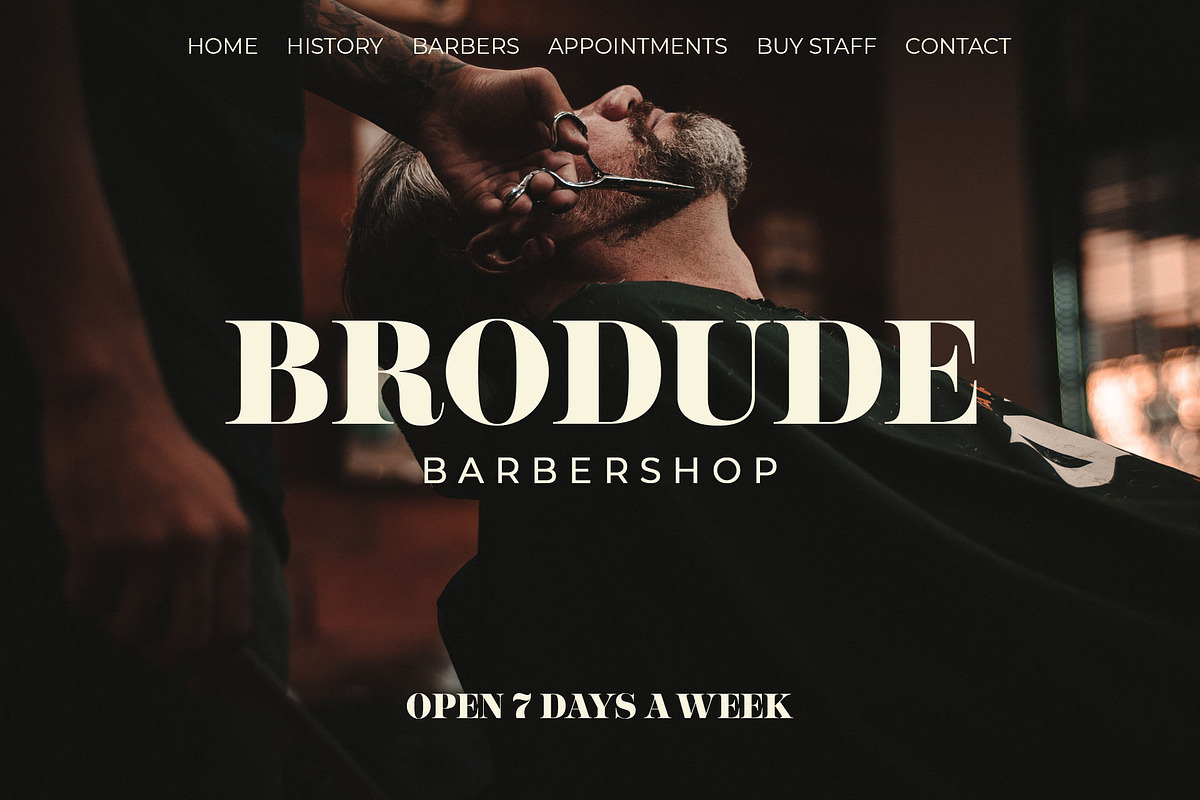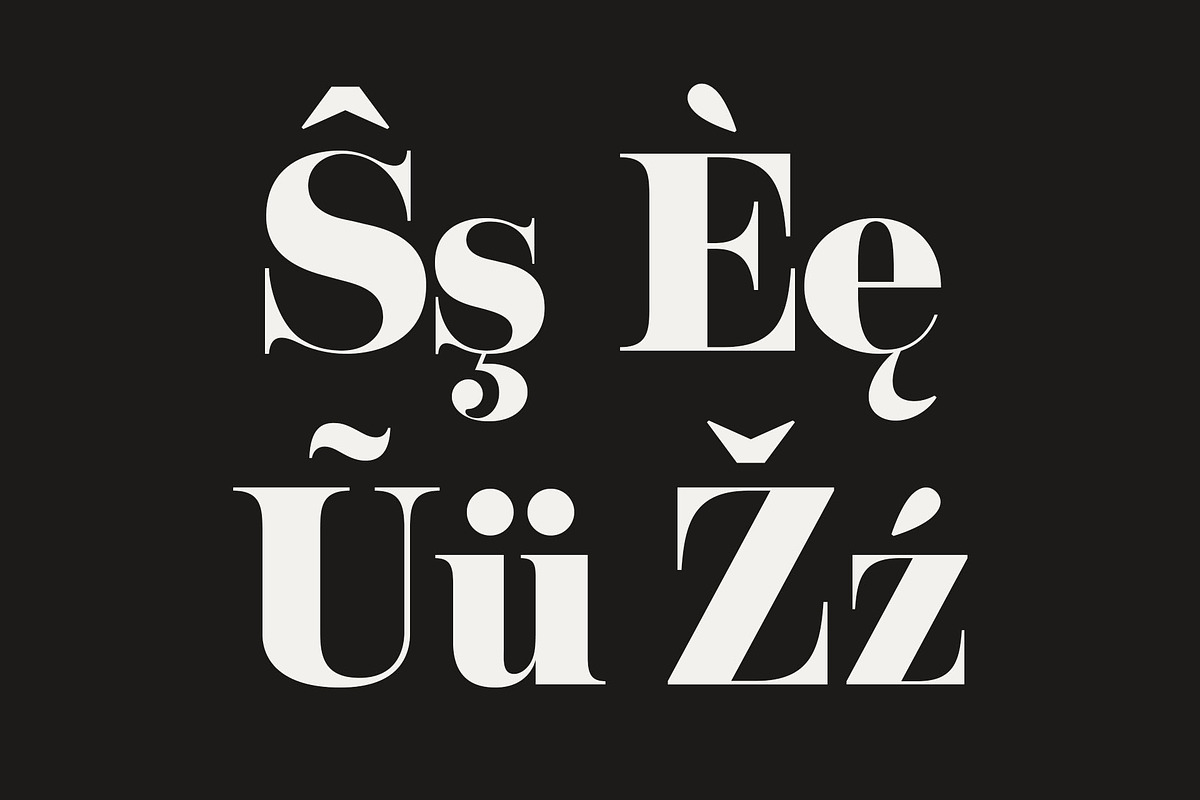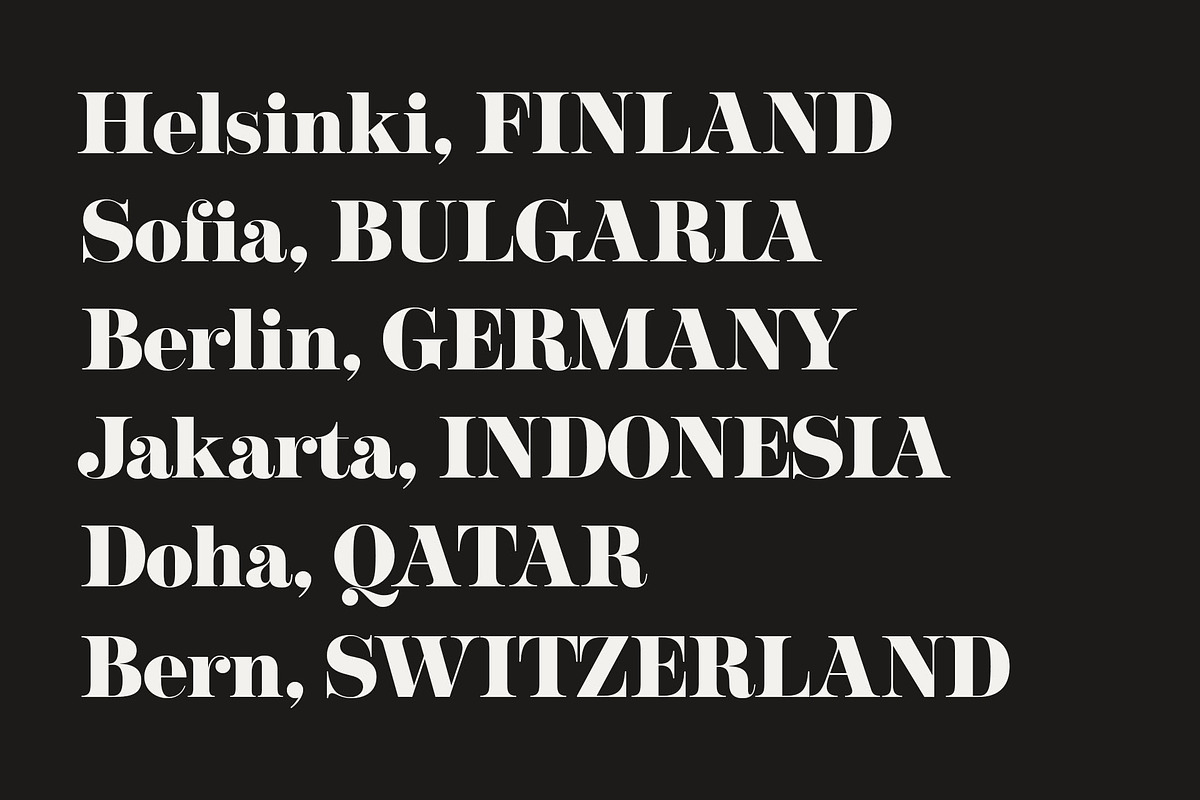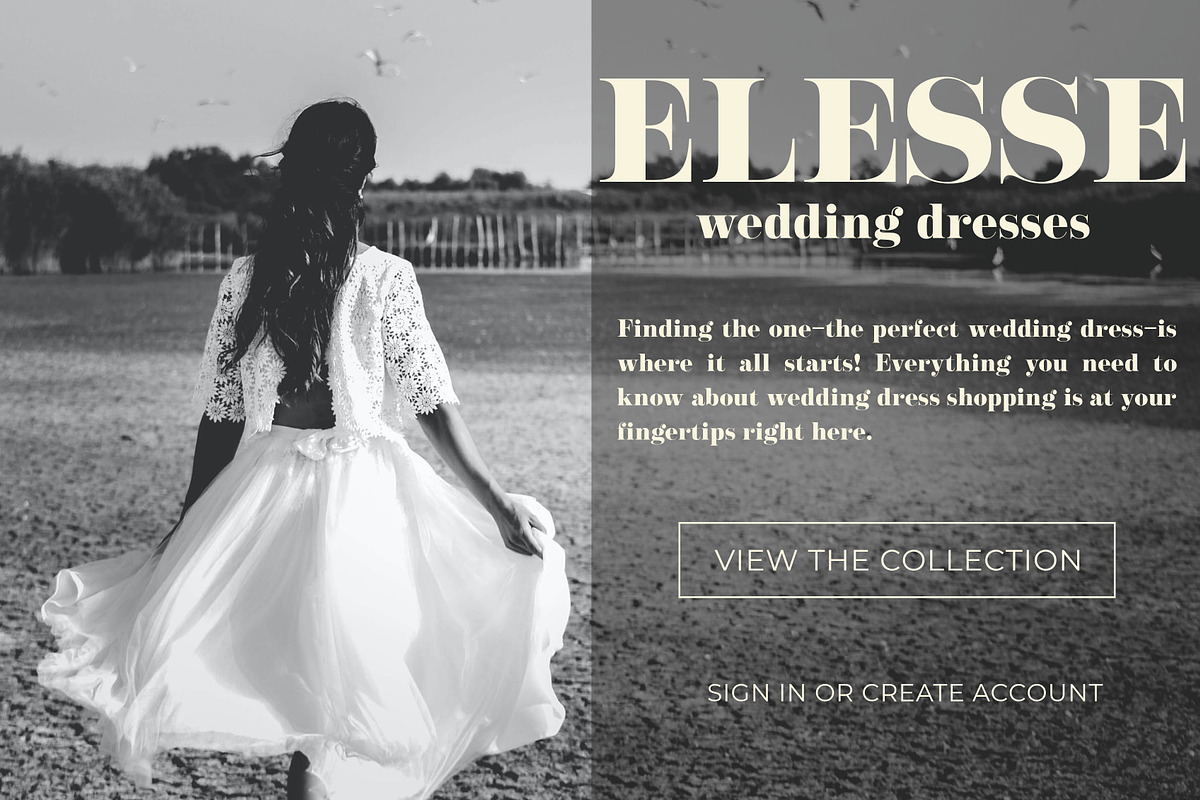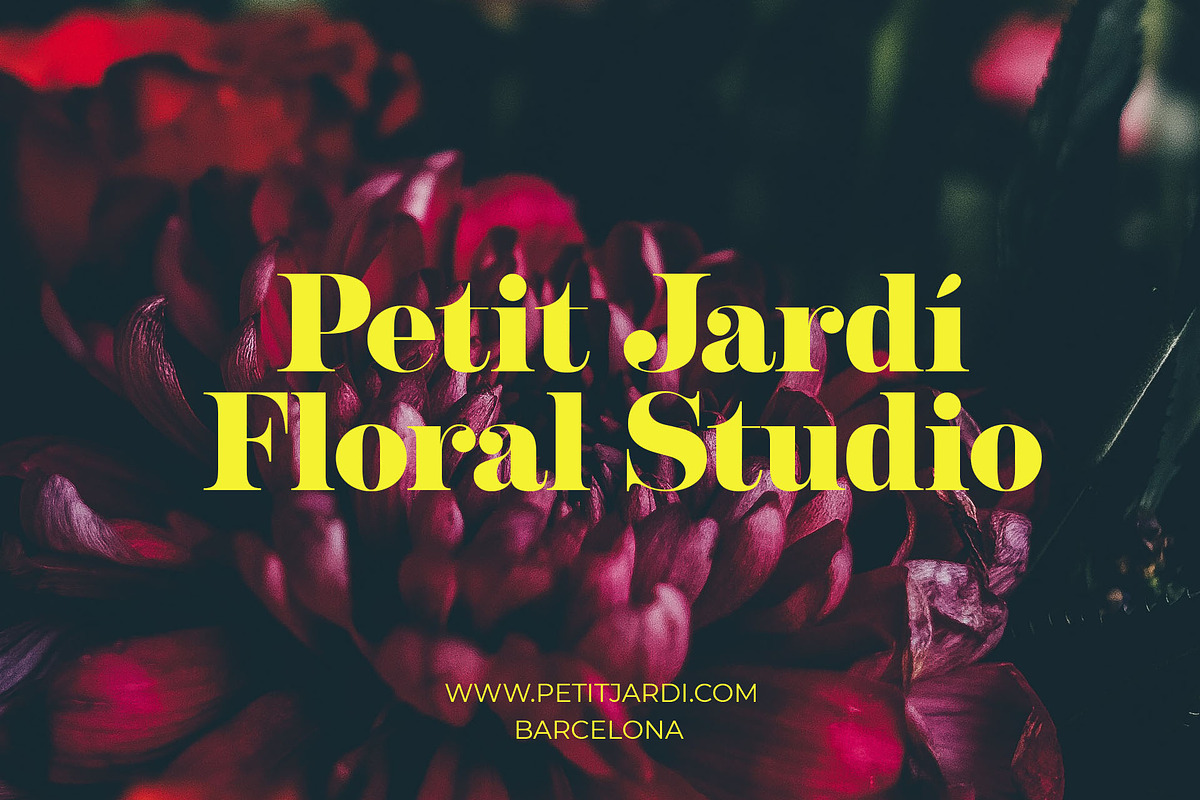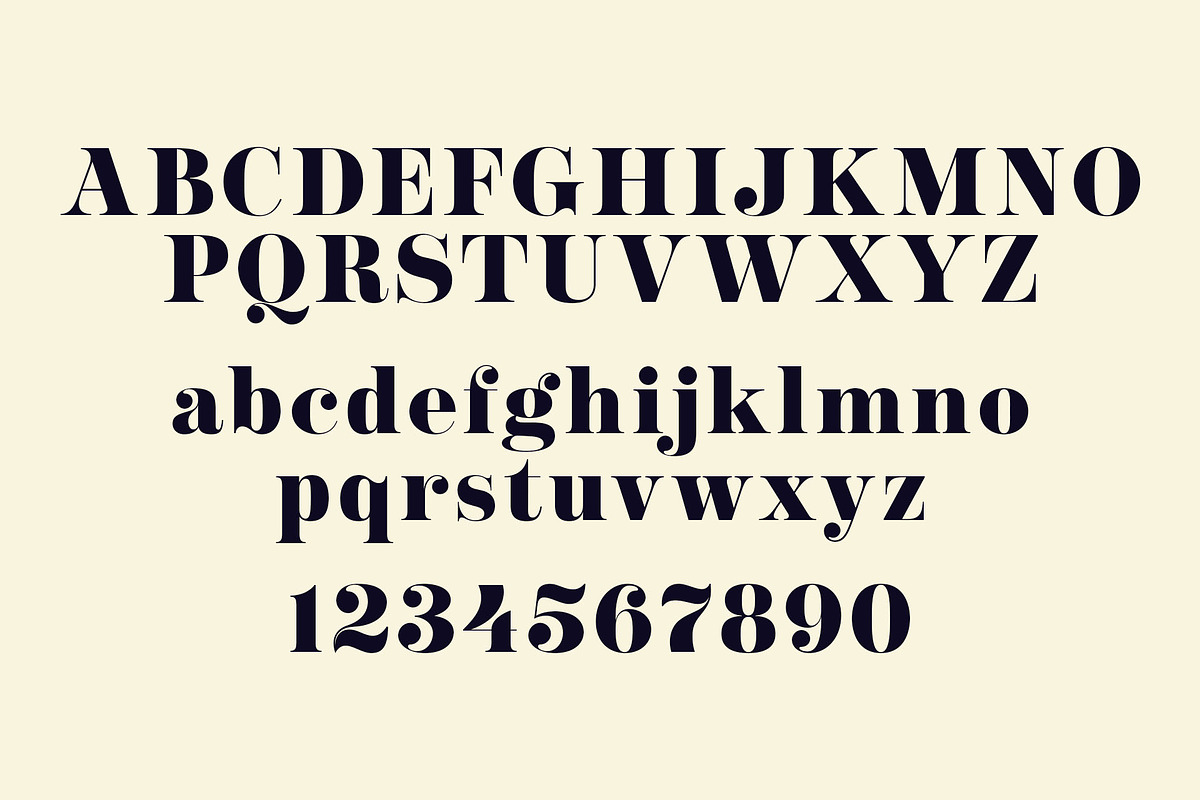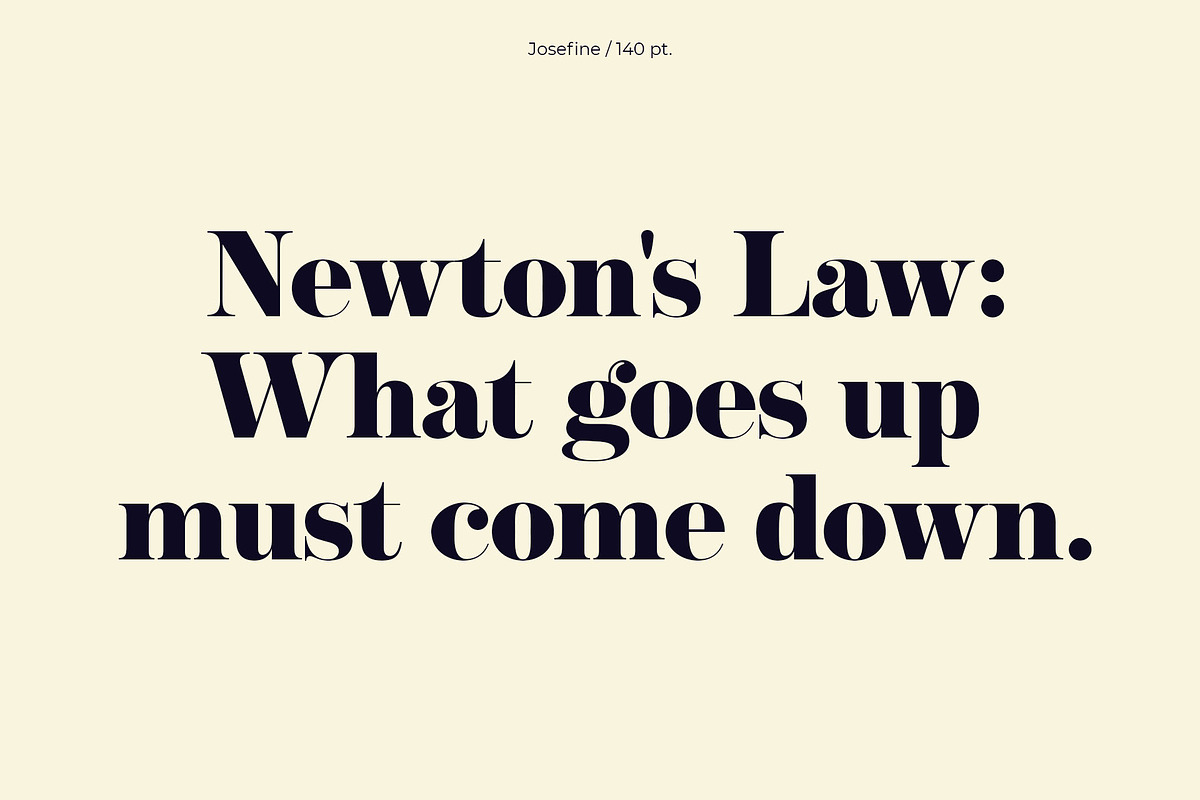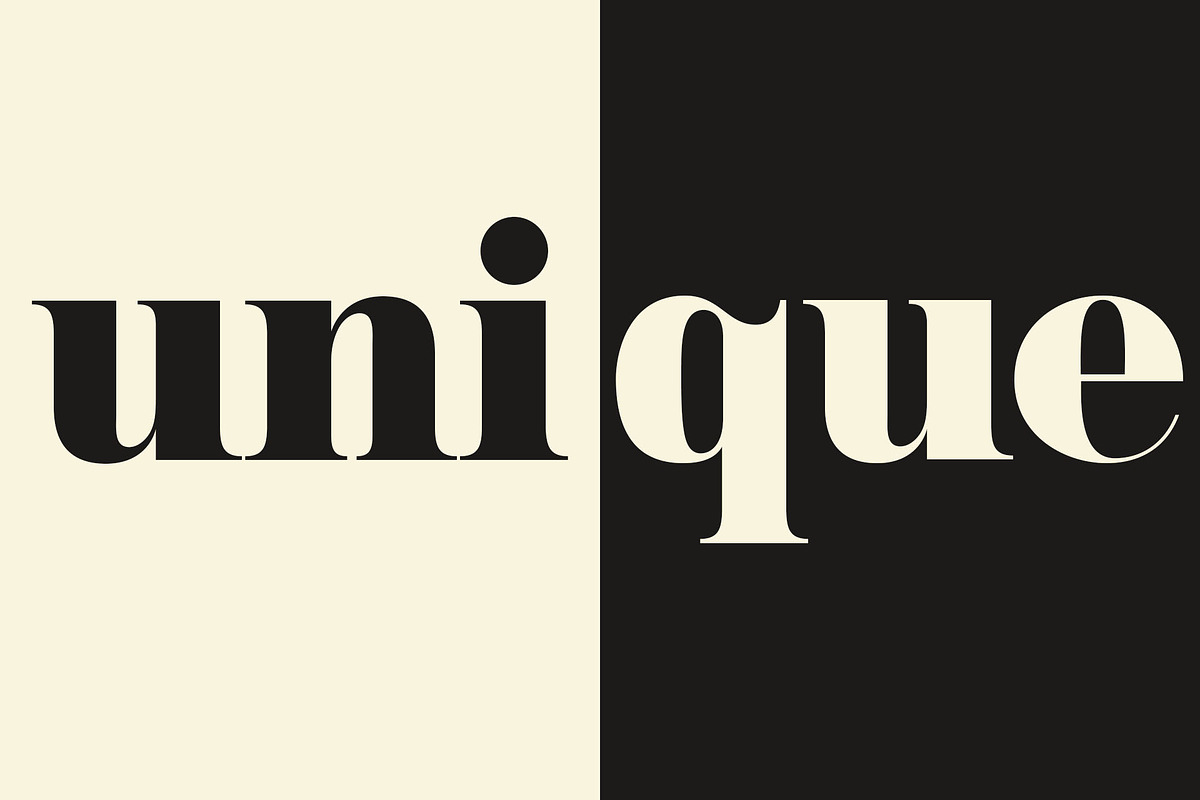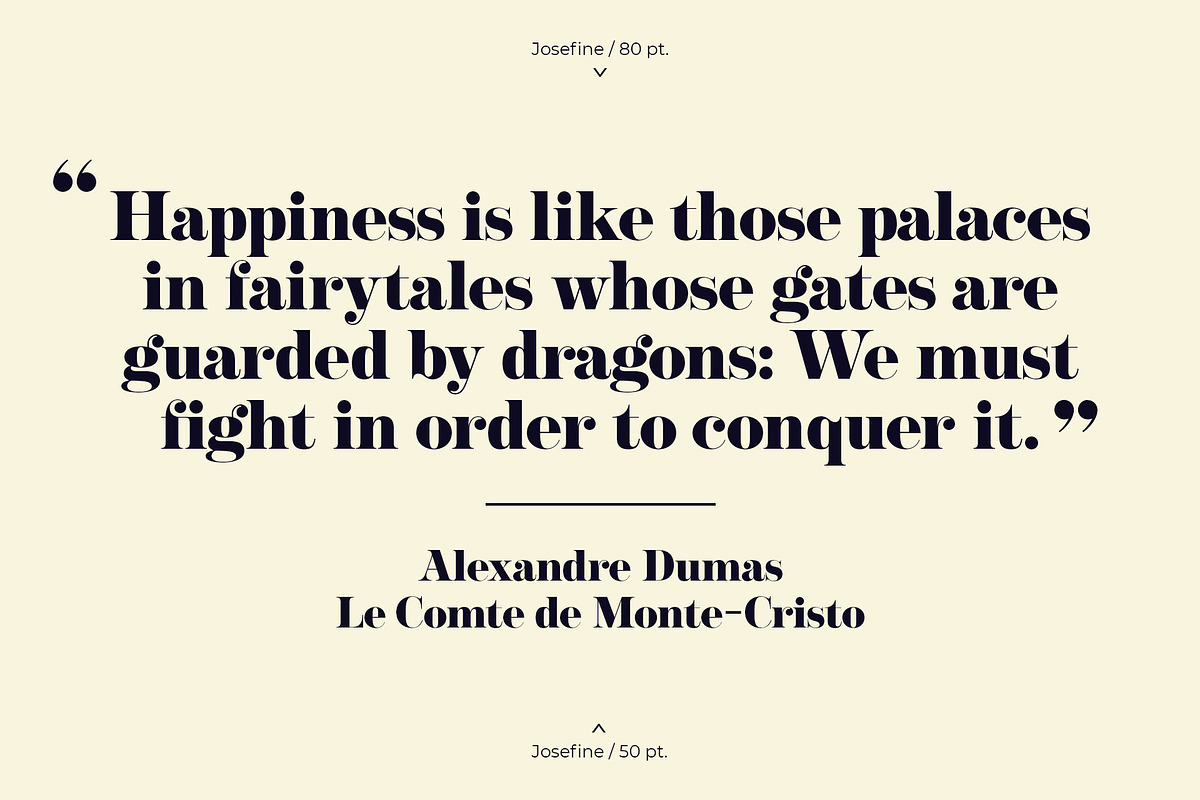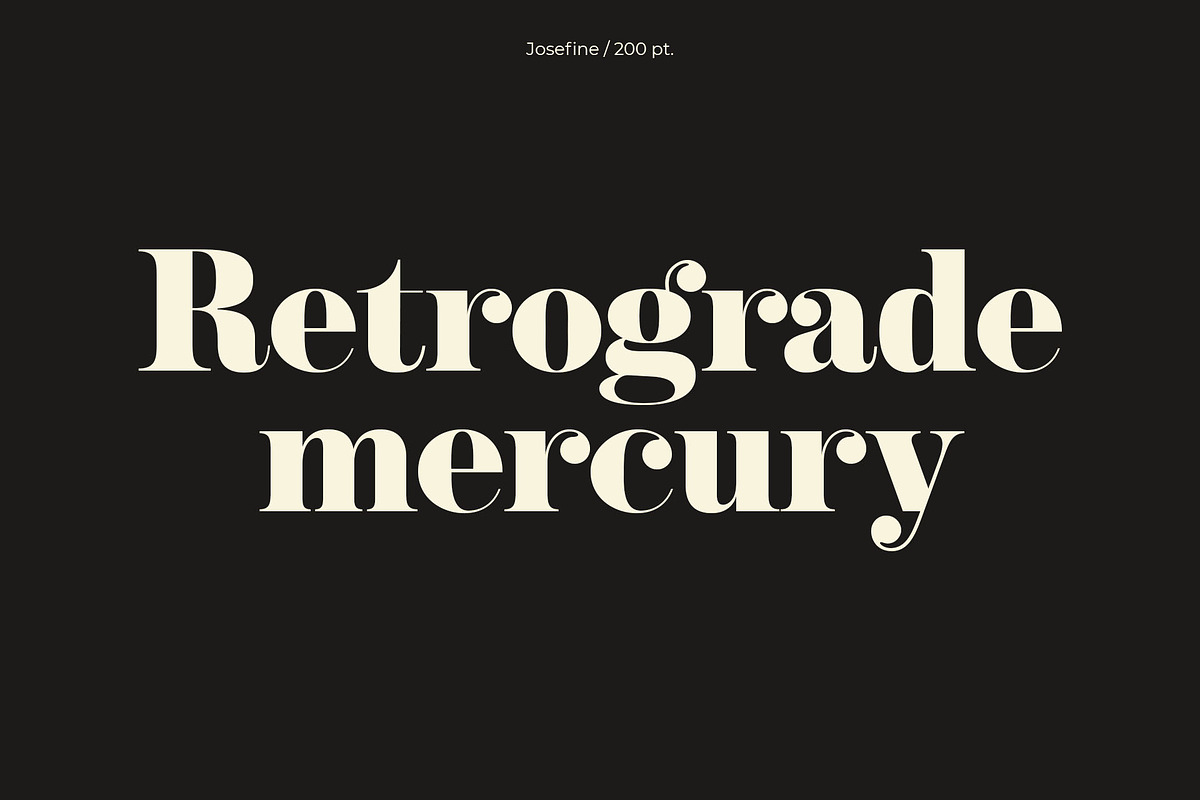
NT Josefine
NT Josefine is a new serif font, that will bring a touch of elegance to any project. Perfect for invitations, postcards, posters, book covers, advertisements, websites, logos, magazines & much more.
NT Josefine supports over 200 Latin-based languages.